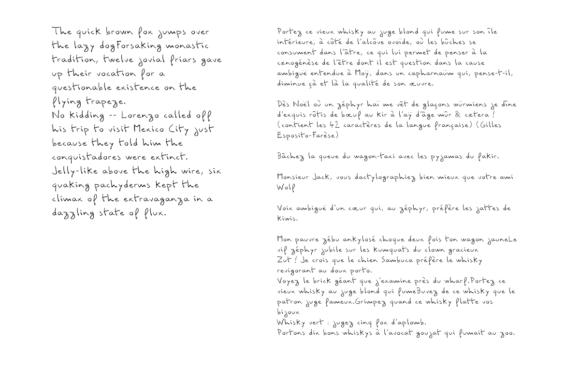
Comili Font
About Comili Font
“Comili” is a stunning handwritten font created for comics. It’s based on the designer’s own handwriting, to fit their drawings. It’s a light and large font, meant for both texts and titles.